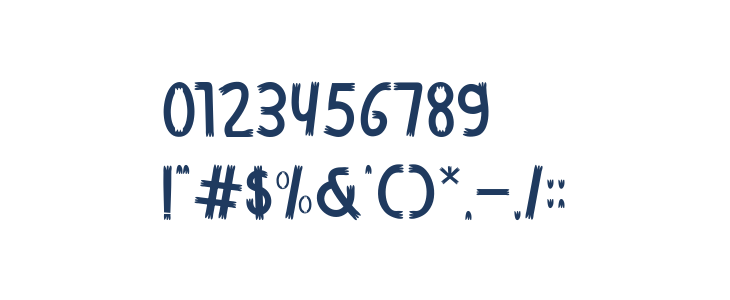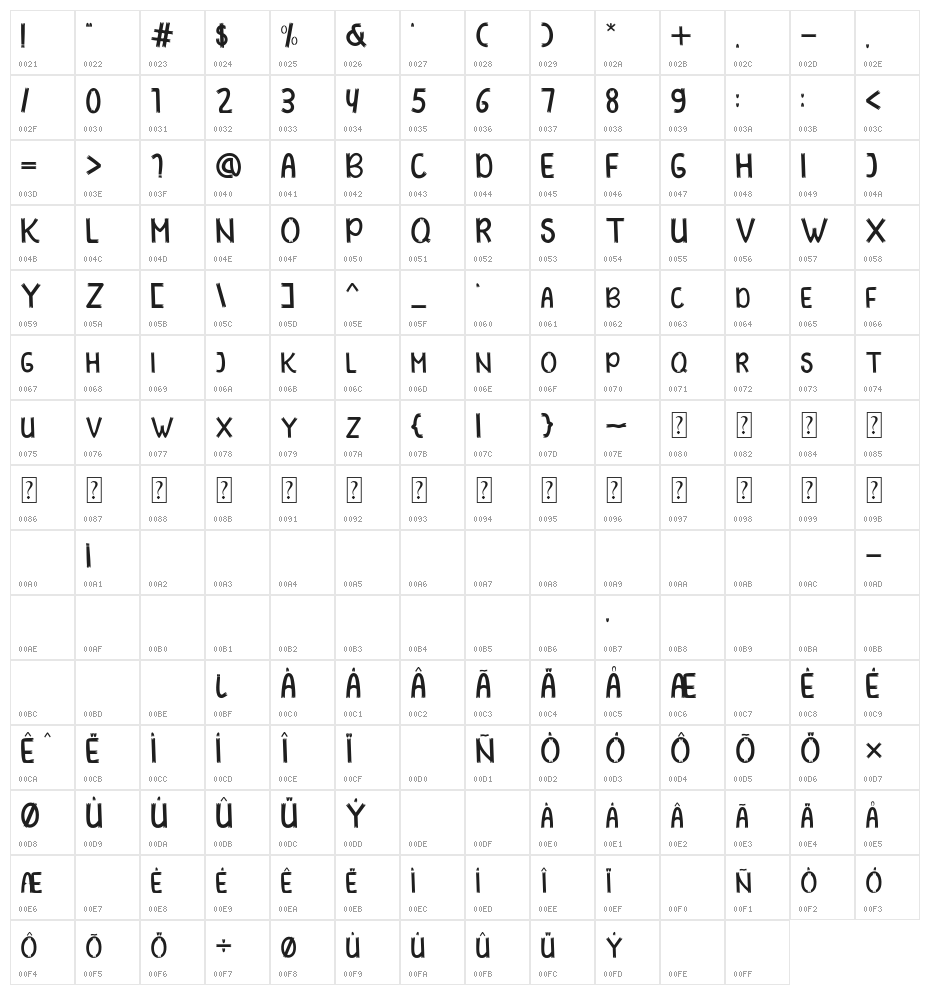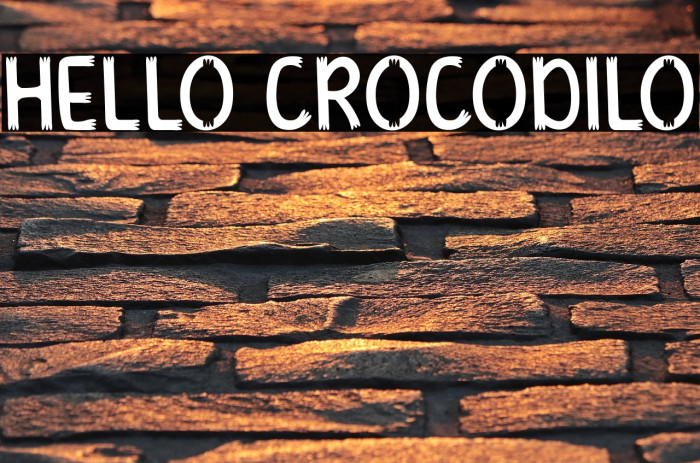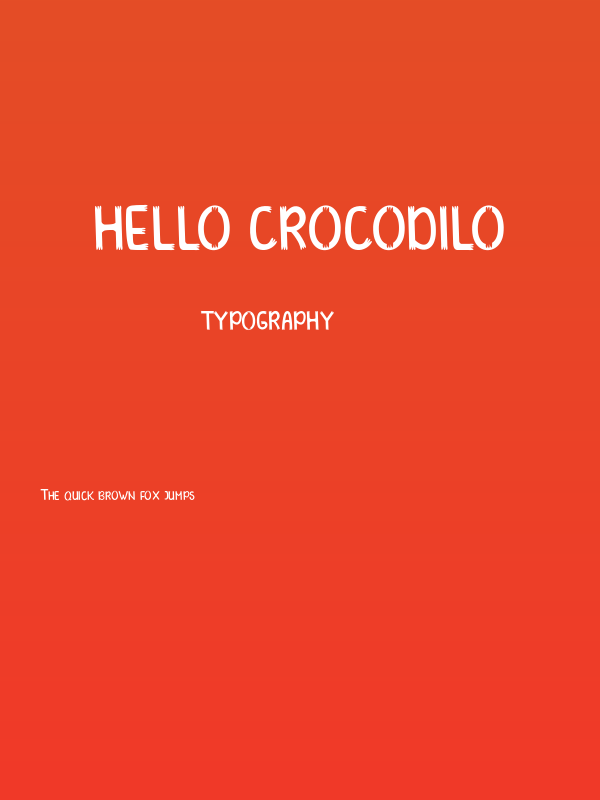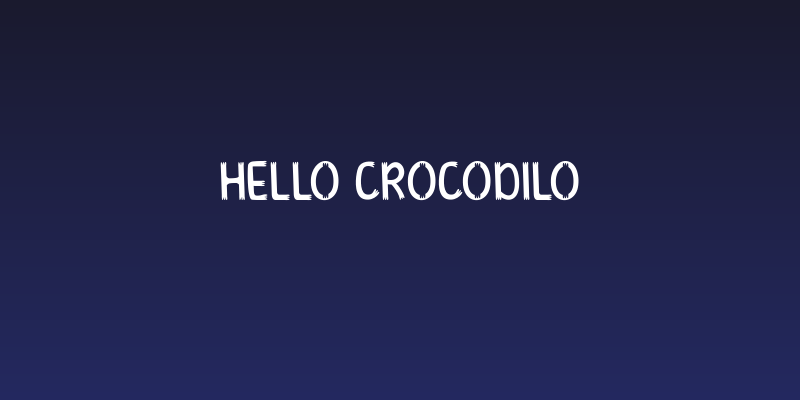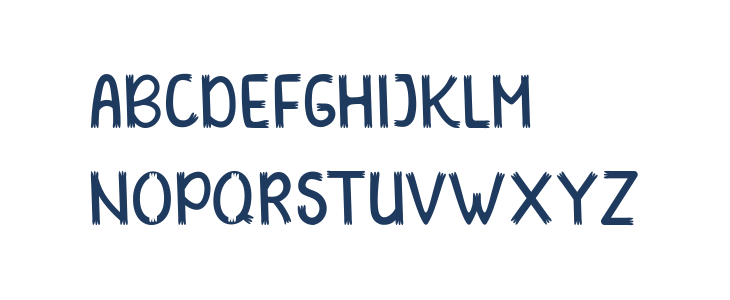
HELLO CROCODILO Font
HELLO CROCODILO Description
This font features a playful and dynamic style with a unique, jagged texture that resembles the scales of a crocodile. The characters are bold and slightly irregular, giving them a hand-drawn appearance. The uppercase and lowercase letters maintain a consistent height, while the numbers and special characters follow the same stylistic approach. The font's distinctive look makes it ideal for projects that require a fun and eye-catching design. Its bold strokes and quirky details add a sense of movement and energy, making it suitable for creative and informal applications.
| Proposed Projects | Ideal for children's books, playful branding, event posters, and creative social media graphics. |